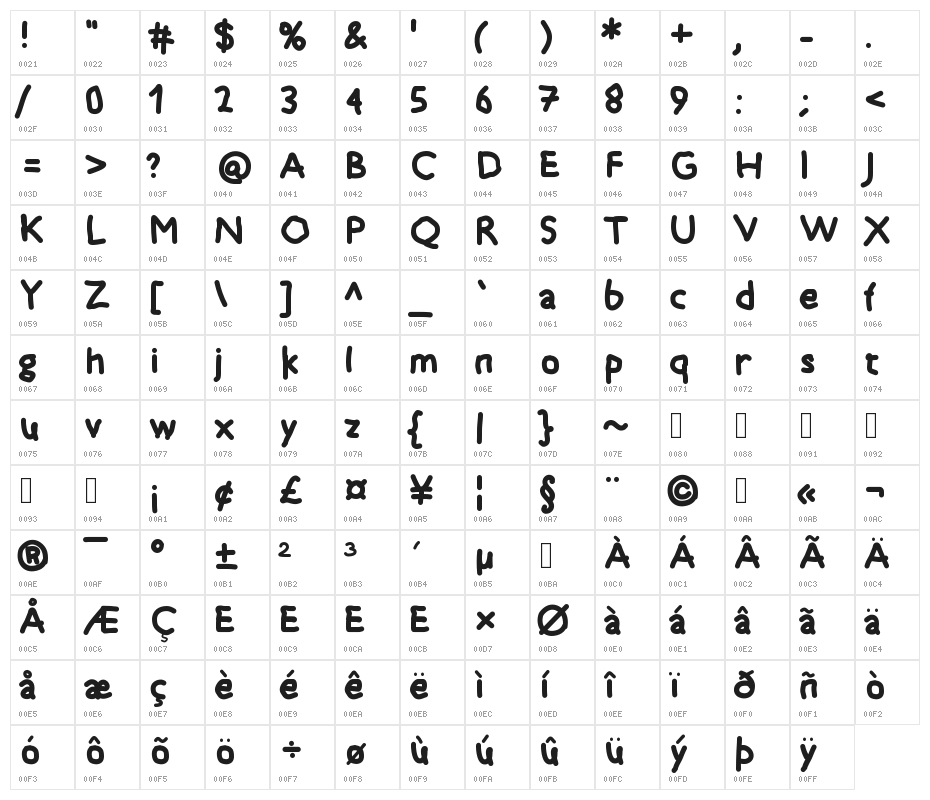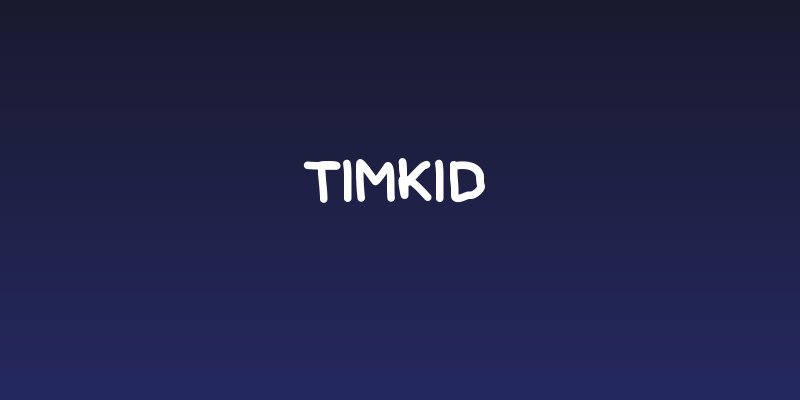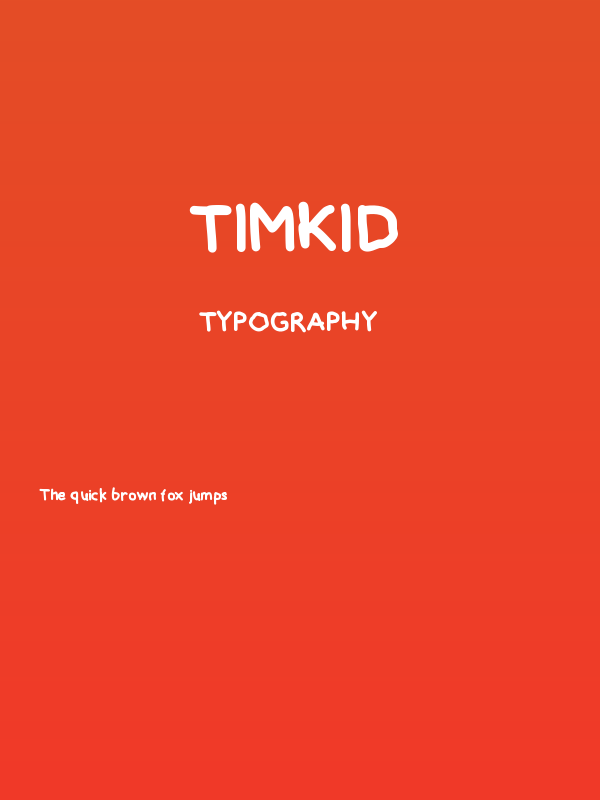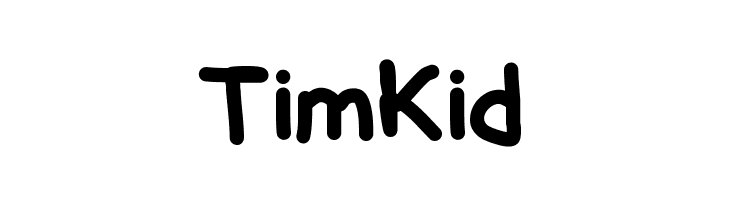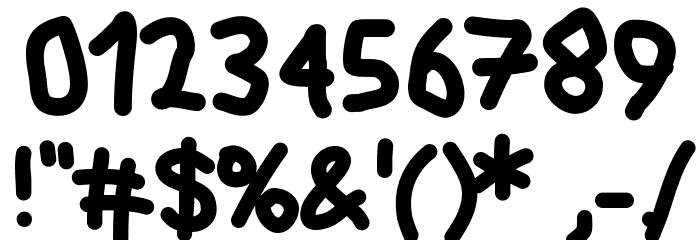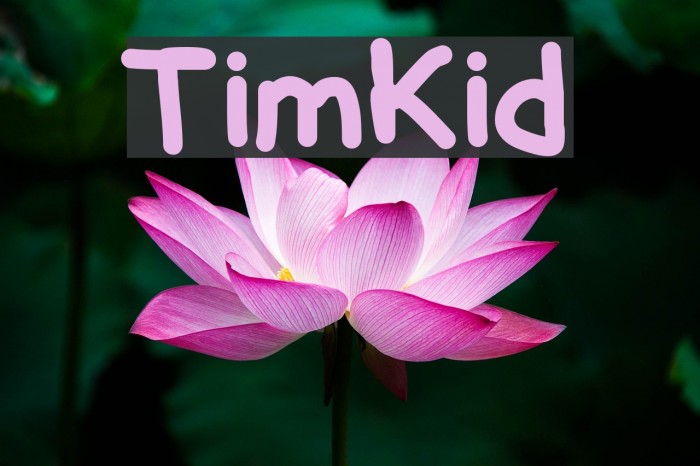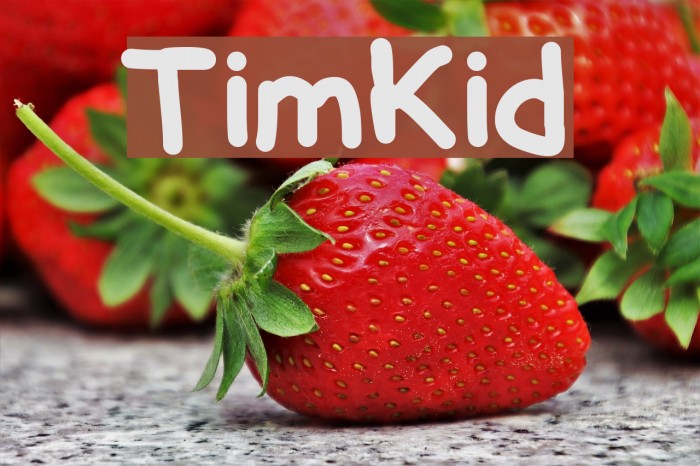
TimKid Font
| Style général | Playful |
| Projets proposés | Ideal for children's books, playful branding, casual invitations, and creative posters. |